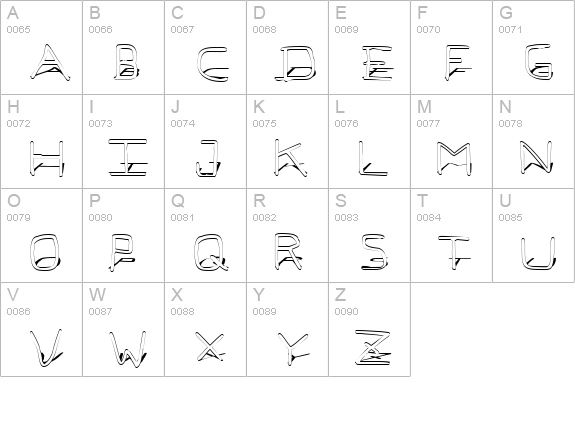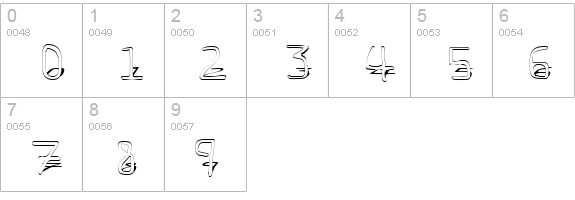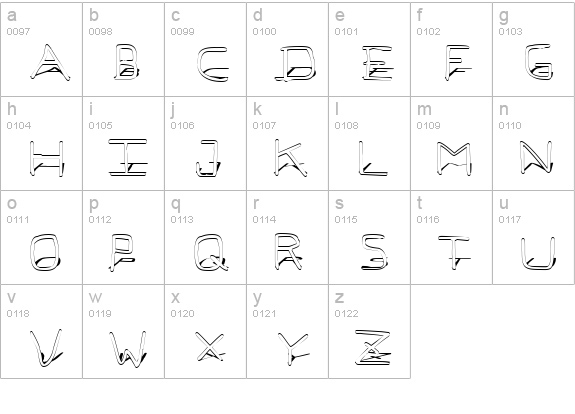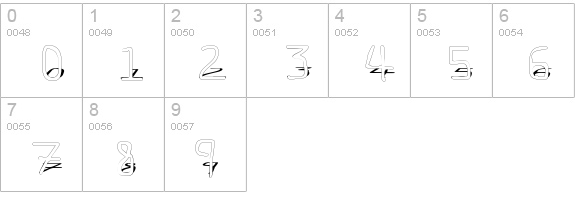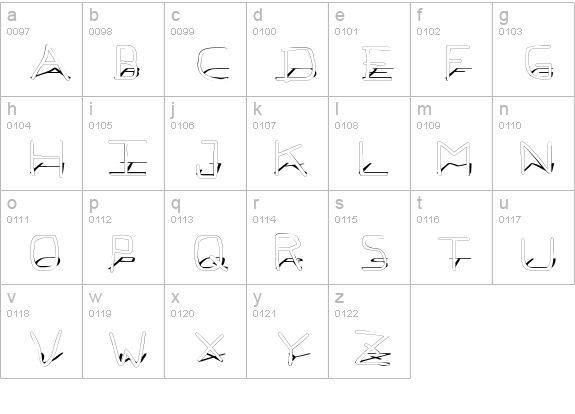
Pf_veryverybadfont7 Shadow Font Details
Introducing Pf_veryverybadfont7 Shadow, a striking and distinctive font that will captivate your audience with its unique design. This font exudes an air of mystery and intrigue, making it the perfect choice for projects that require a touch of edginess and individuality. With its bold, shadowed appearance, Pf_veryverybadfont7 Shadow demands attention and commands a strong presence. Its sharp lines and exaggerated letterforms create a sense of drama, allowing your text to stand out and make a lasting impression. But what truly sets Pf_veryverybadfont7 Shadow apart is its versatility. This font can effortlessly adapt to a variety of design projects, from logos and branding materials to posters and social media graphics. Its ability to convey both elegance and a rebellious spirit makes it a valuable asset for any creative endeavor. And the best part? Pf_veryverybadfont7 Shadow is completely free! That's right, you can download this stunning font without spending a dime. Simply visit FontsMarket.com and grab your copy today. With Pf_veryverybadfont7 Shadow at your disposal, you have the freedom to unleash your creativity without any limitations. So why wait? Embrace the power of Pf_veryverybadfont7 Shadow and elevate your designs to new heights. Download this incredible font now and make a lasting impact with your next project.